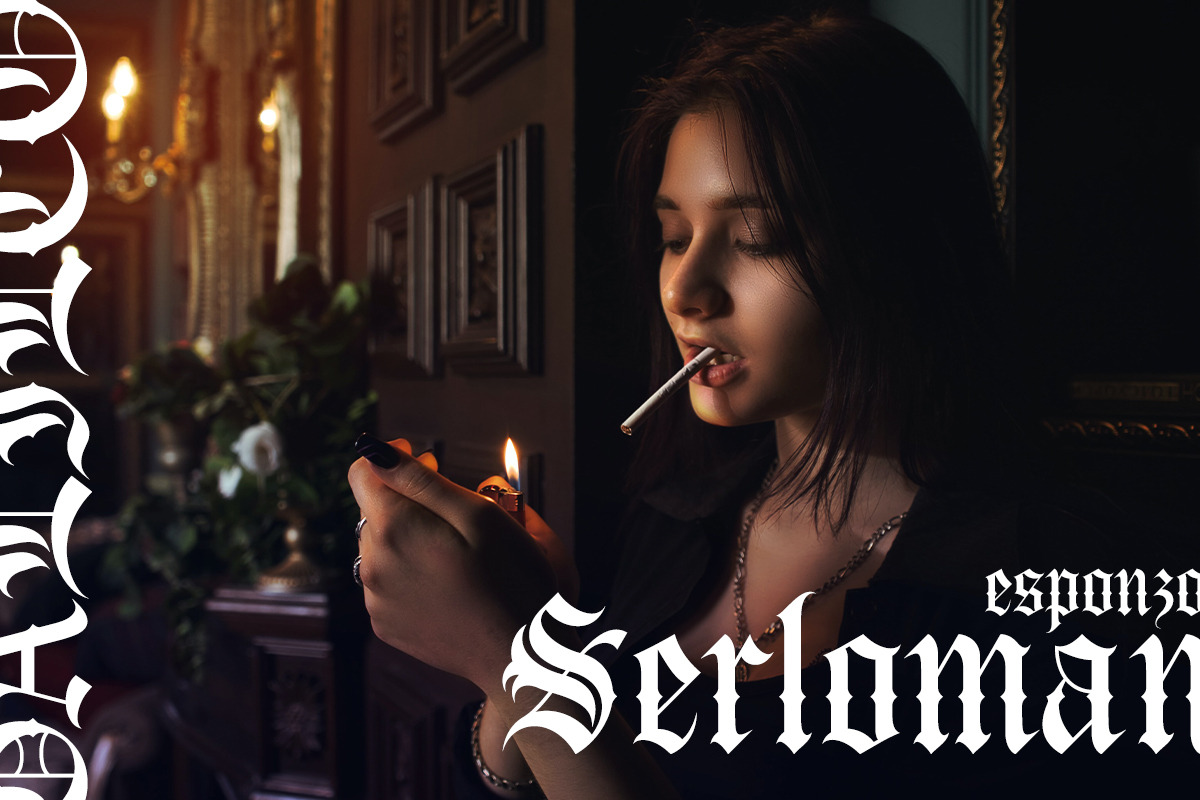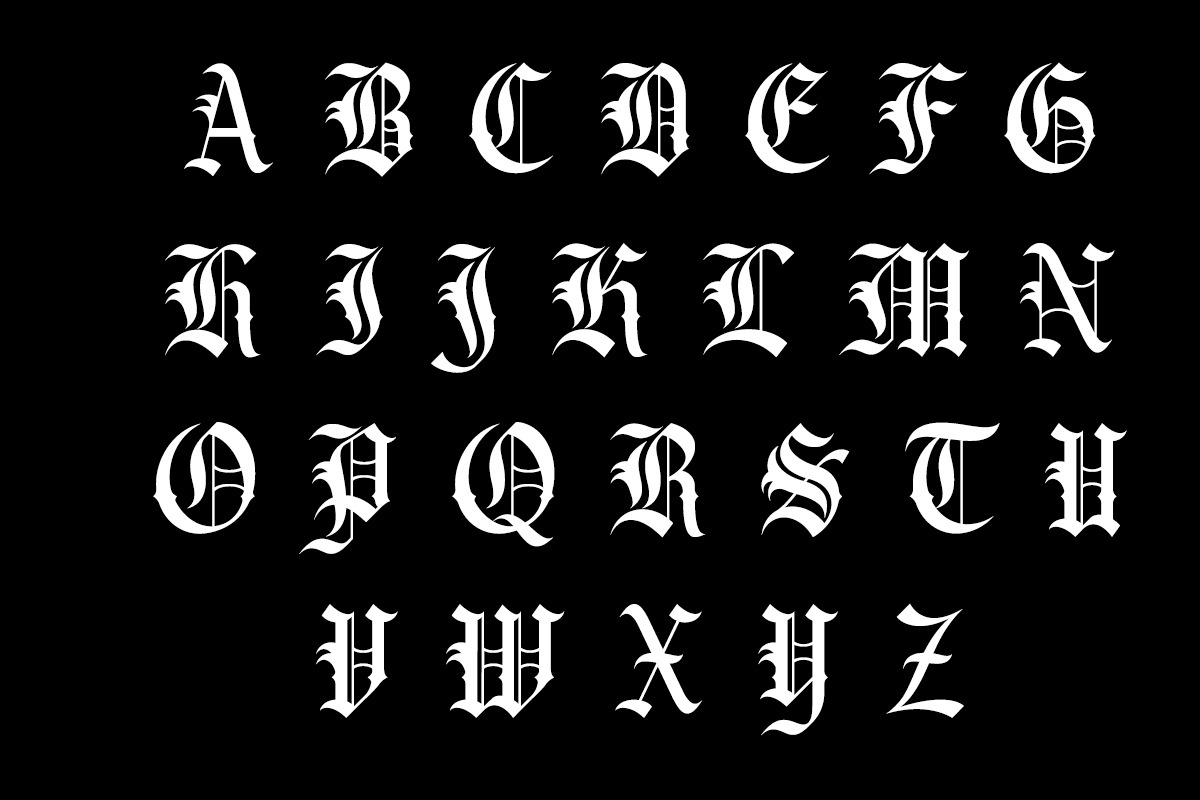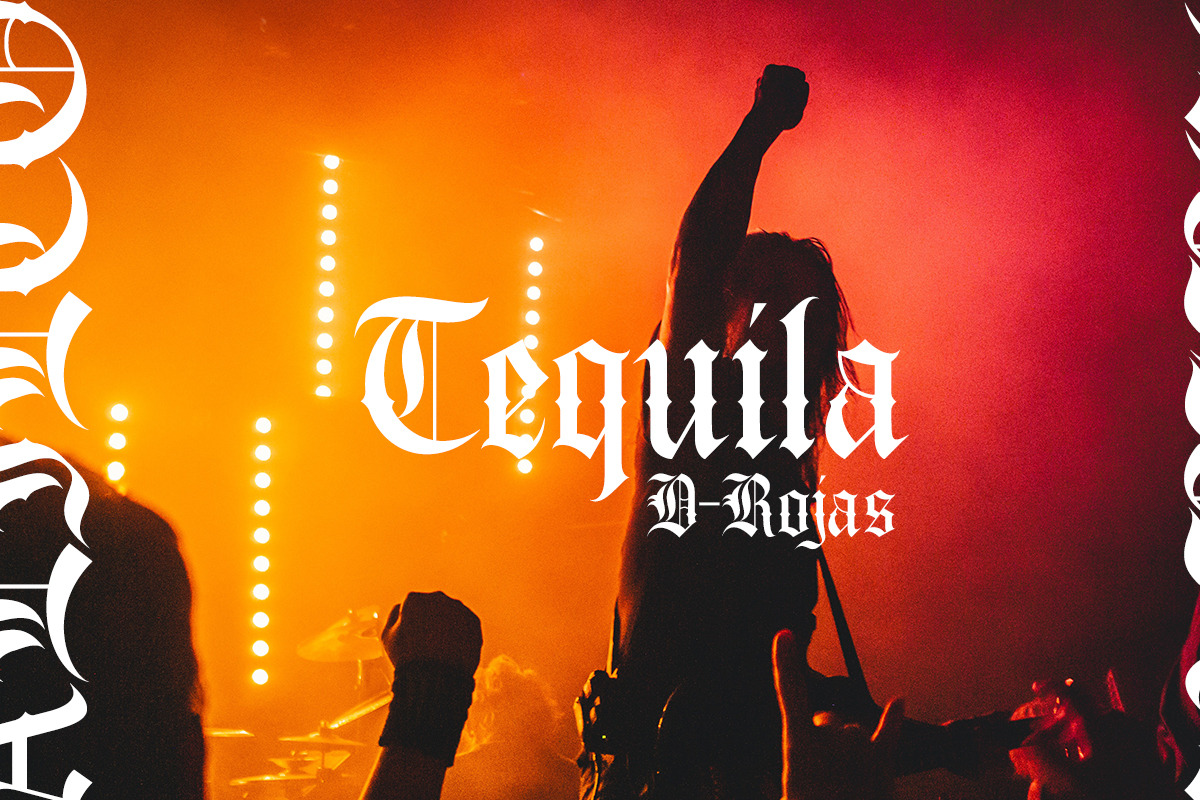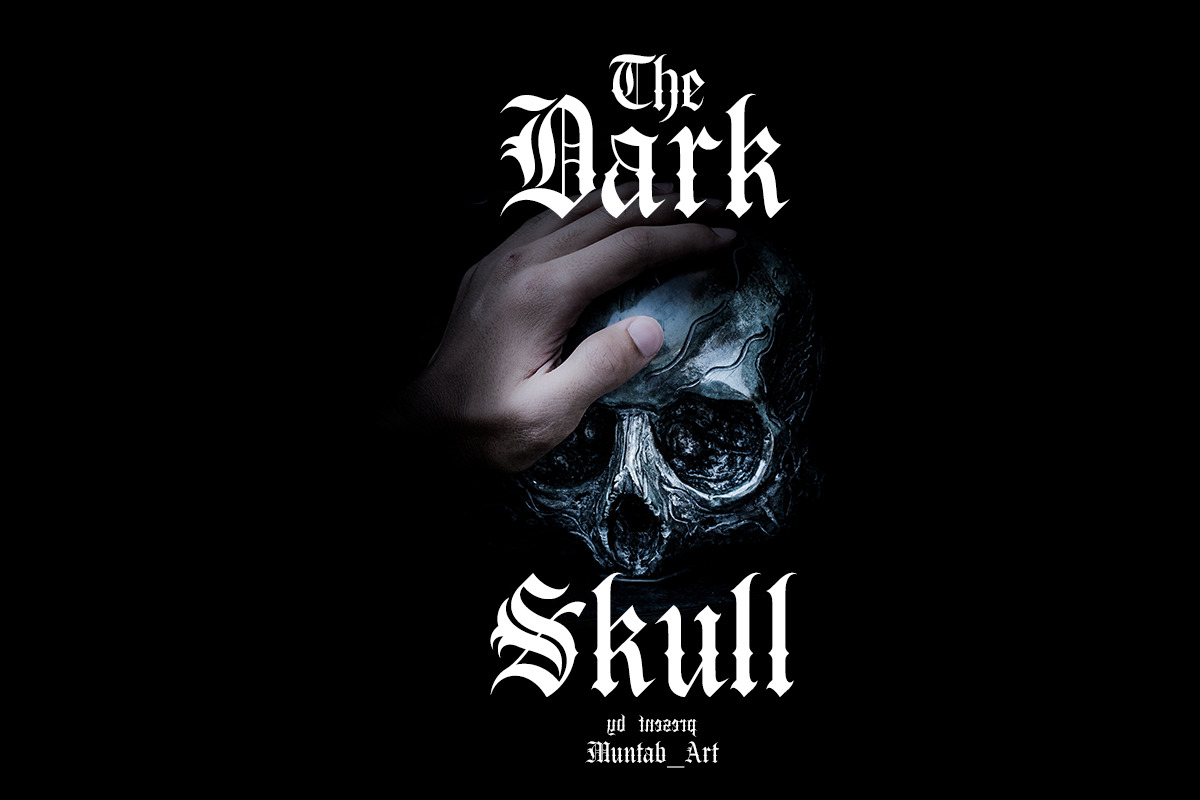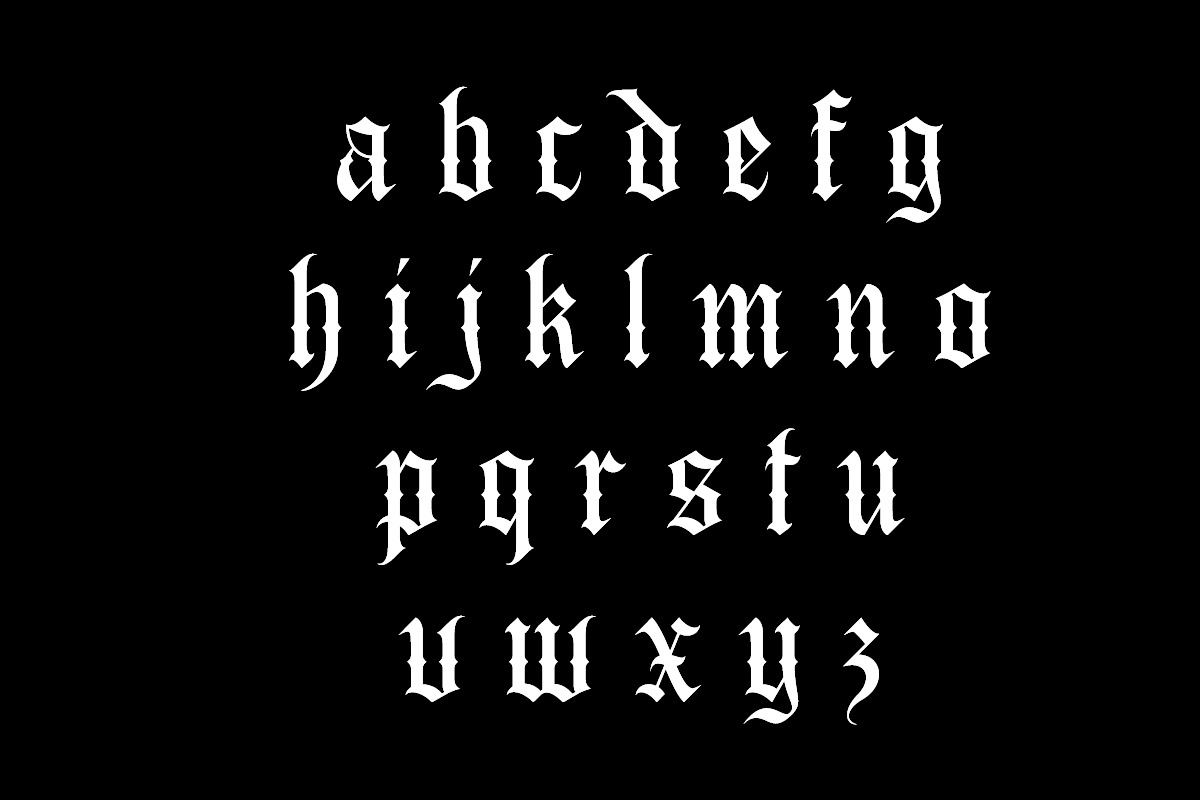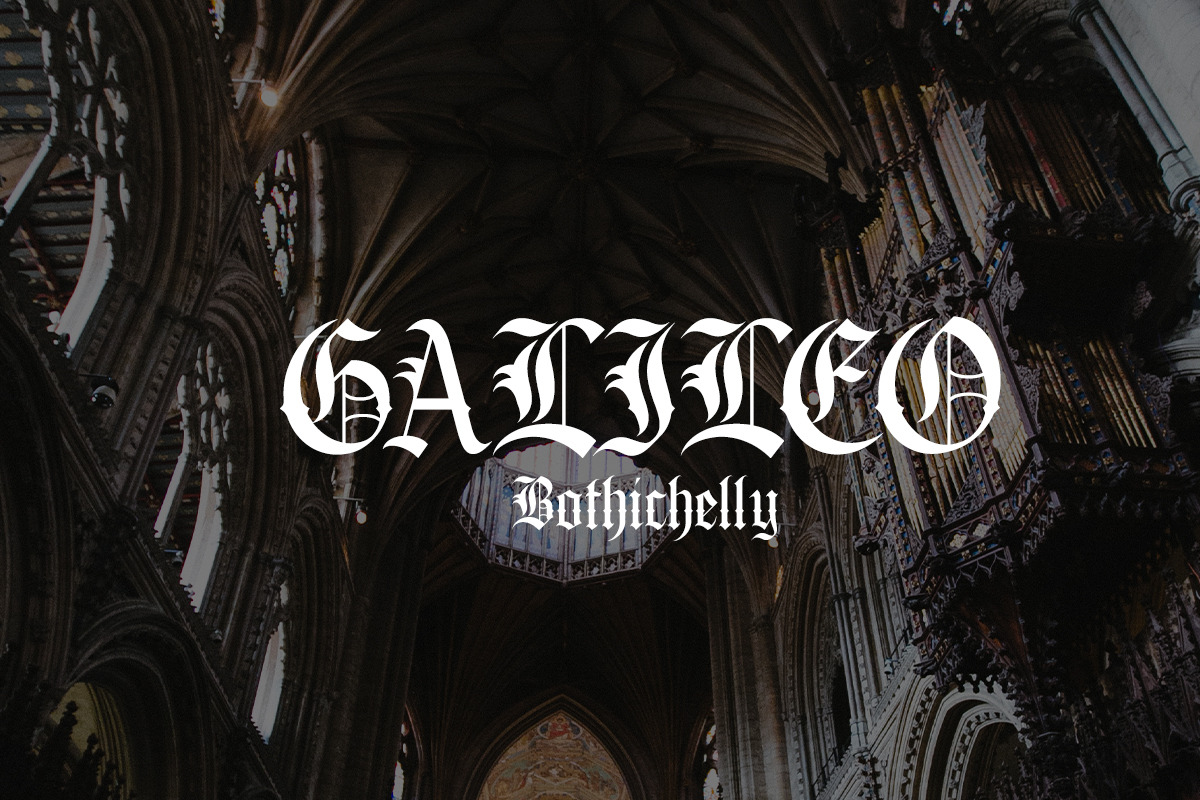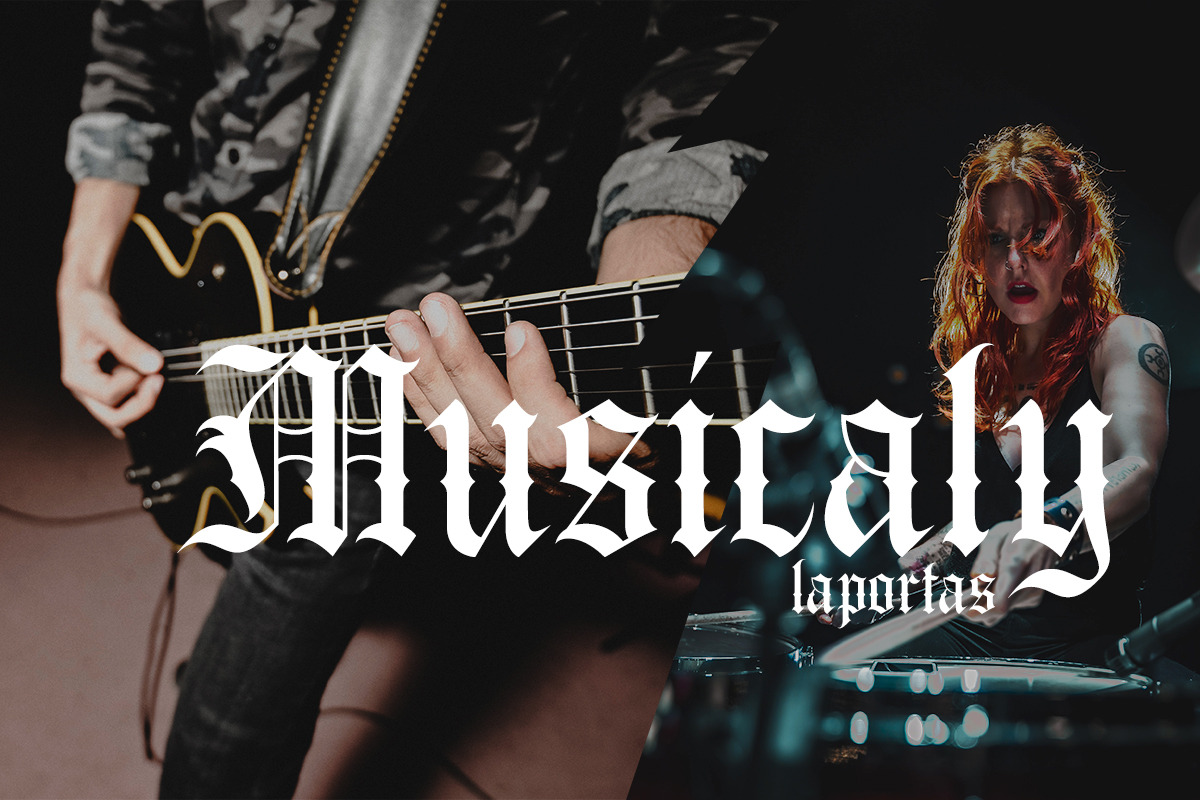
Carnage | Modern Blackletter
Carnage fonts includes uppercase letters, lowercase letters, numerals, a large range of punctuation. Blackletter font with modern style. Created for poster, web design, branding, illustrations, badges, shirt design and some other works.